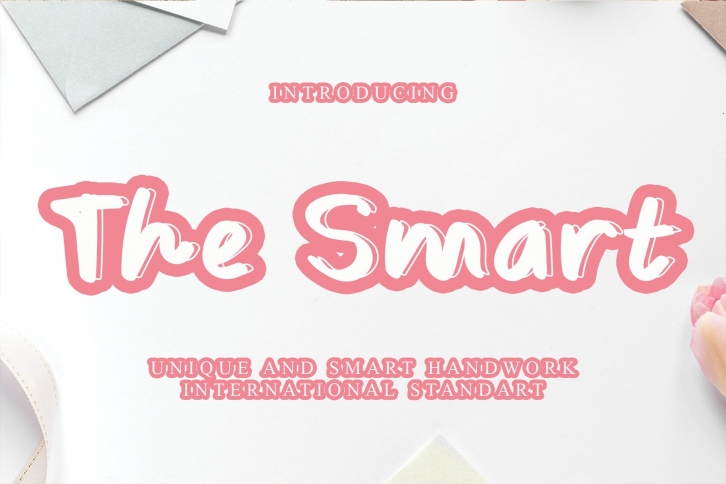
The Smart is a great font that was designed by Giart Studio. Imagine the amount of combinations you can create using this font! The archive is 16.96 MB and it was released on November 4, 2020. The Smart looks beautiful on wedding invitations, greeting cards, logos, posters, labels, t-shirt designs, logos, business cards and is perfect for use in ink or watercolor works, fashion, magazines, packaging and food menus, children's books and more!